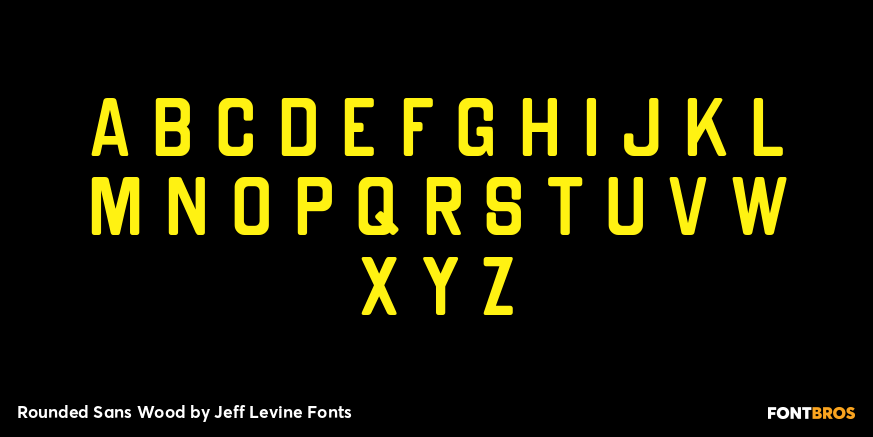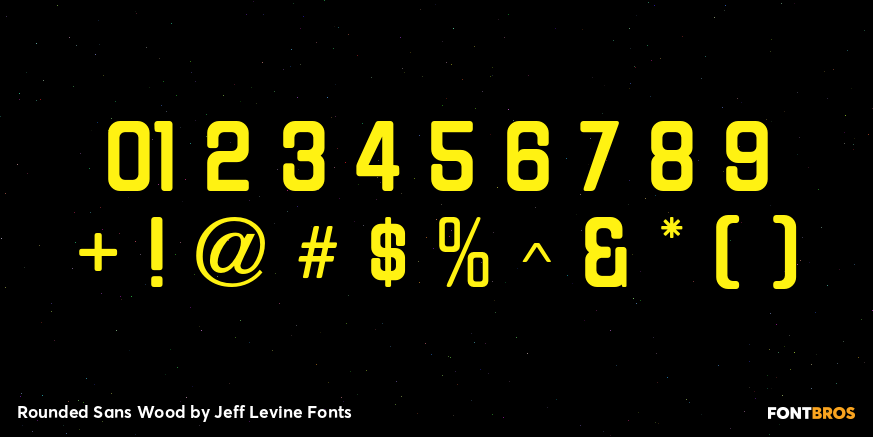
Rounded Sans Wood
Examples of a wood type alphabet for letterpress are the basis for Rounded Sans Wood JNL. Clean and bold, the rounded ends give a softer, more informal look to any display copy.